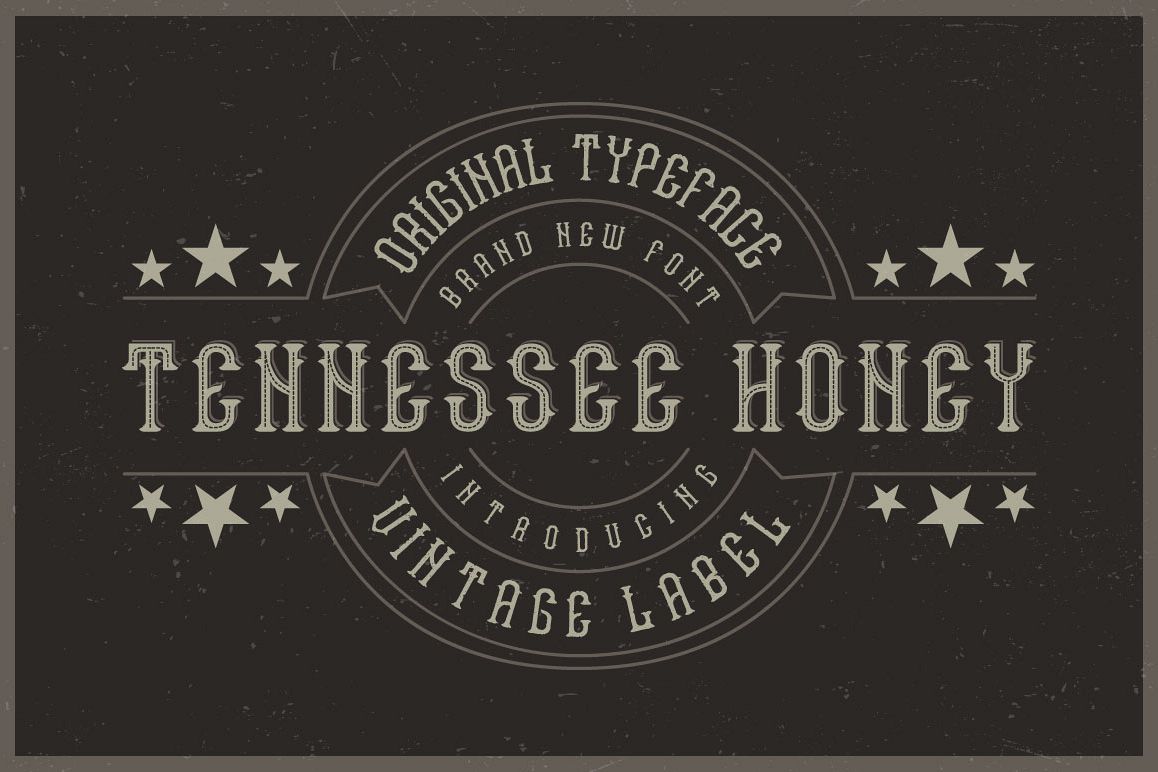
Tennessee honey font
Introducing a vintage label typeface named "Tennessee Honey". It's made in strong and vintage label style. Typeface looks great on any label designs and t-shirts.
• You can mix color of base font, texture and shadow effect (look at 4th screenshot)